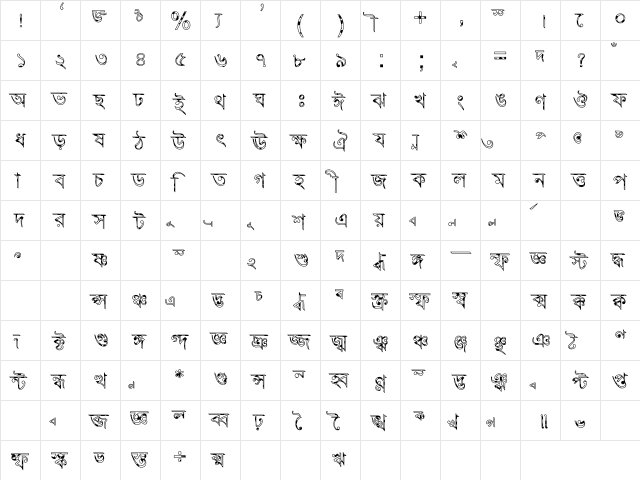
Progoty Cow Regular
Design Context for Progoty Cow Typeface
Progoty Cow offers clean, dependable letterforms without strong stylistic allegiance, making it a practical choice for designers who need flexibility.